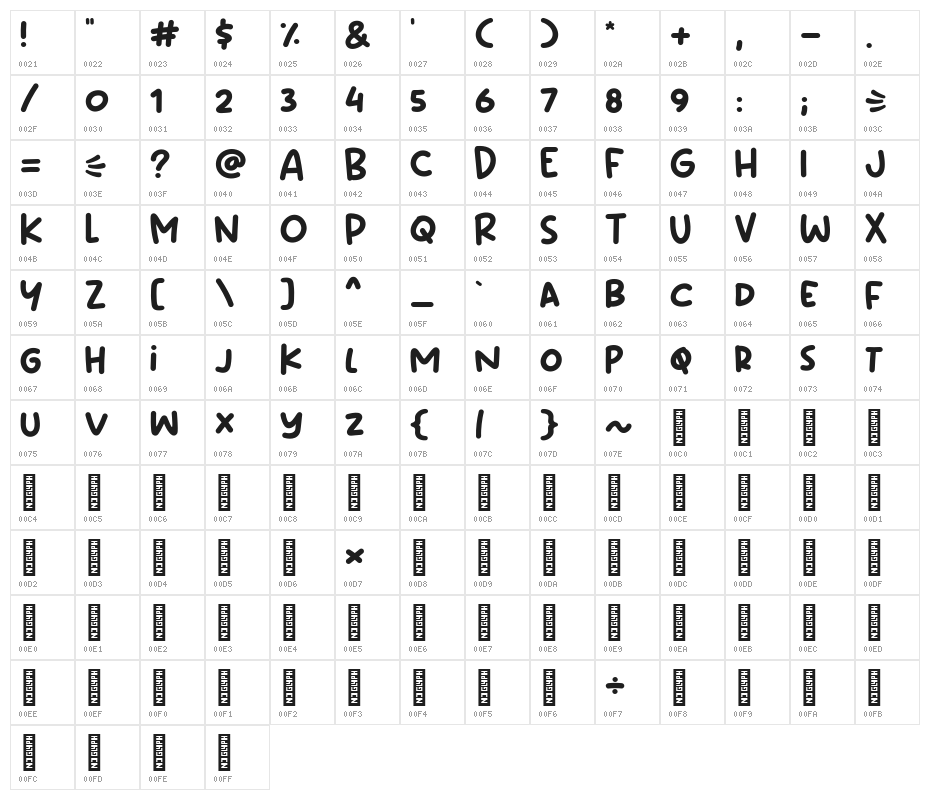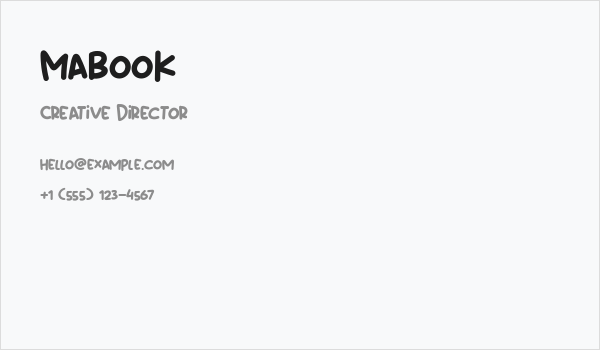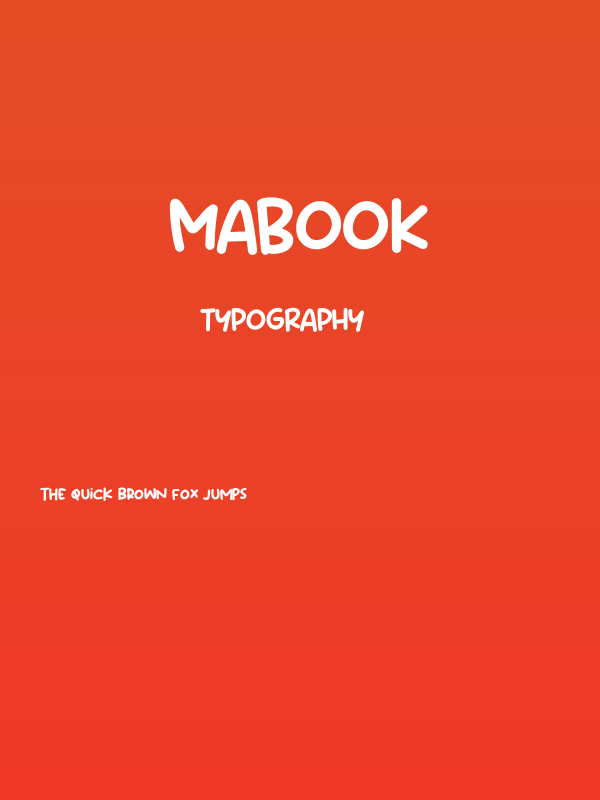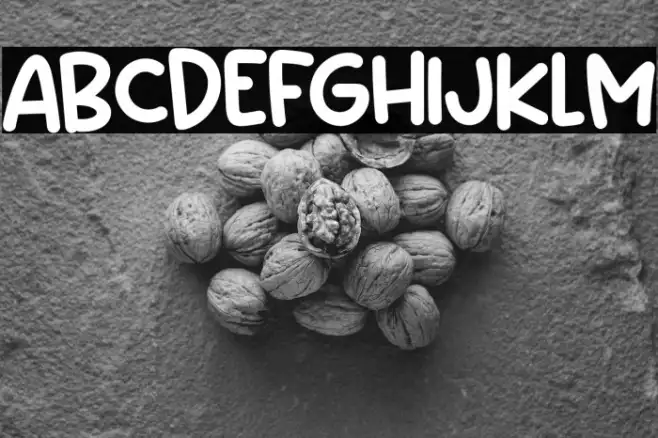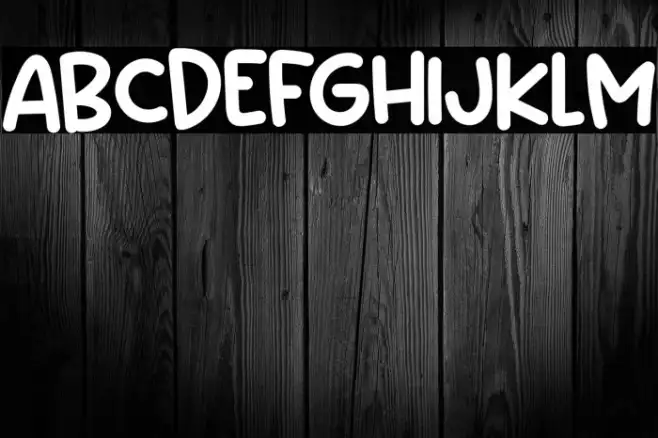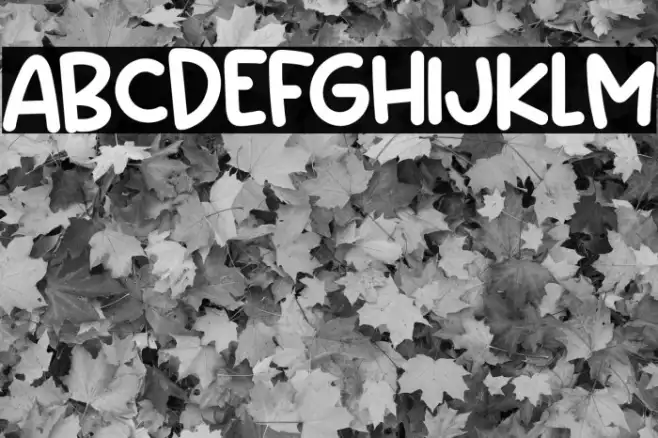
Mabook Font
Mabook Description
This playful and bold font features rounded, thick strokes that give it a friendly and approachable appearance. The characters are slightly irregular, adding a whimsical touch to the overall design. The uppercase and lowercase letters maintain a consistent style, with smooth curves and a slightly exaggerated width. The numerals and special characters follow the same design principles, ensuring uniformity across all glyphs. This font's unique style makes it stand out, making it suitable for creative and informal projects.
| Proposed Projects | Ideal for children's books, playful branding, posters, and greeting cards. |